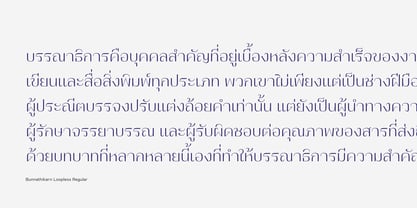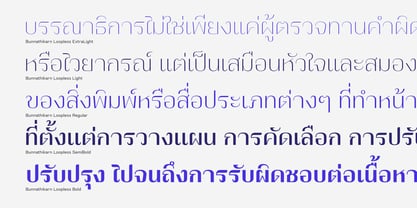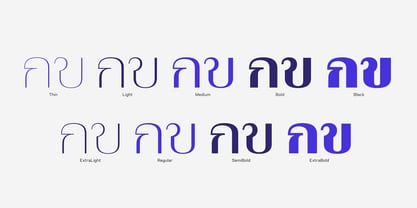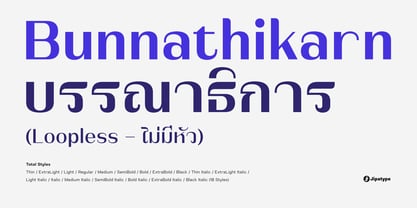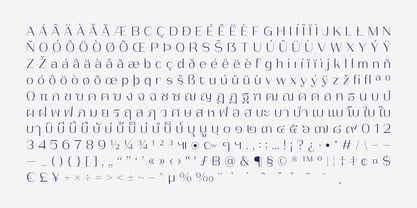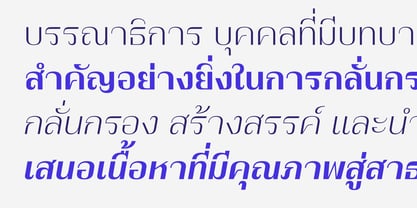
Bunnathikarn Loopless
by Jipatype
The Bunnathikarn Loopless Font Family was designed by Anupap Jaichumnan and published by Jipatype. Bunnathikarn Loopless contains 18 styles and family package options. More about this family
Bunnathikarn Loopless is the modern expansion of the Bunnathikarn family. It retains the signature High-Contrast Sans Serif elegance and extensive 18-style range (Thin to Black, including italics) of its predecessor. The key distinction is the introduction of a completely Loopless style for the Thai characters. This design choice creates a cleaner, more minimalist, and highly contemporary aesthetic for the Thai script, while the Latin letters maintain their original luxurious, high-contrast flair. The result is a highly effective bilingual font that is sharp, elegant, and exceptionally versatile across both scripts. Bunnathikarn Loopless is ideal for Branding, Headlines, and Digital Media that require a premium, modern, and internationally refined look, especially in fashion, luxury, and corporate sectors.
Designers: Anupap Jaichumnan
Foundry: Jipatype
Bunnathikarn Loopless